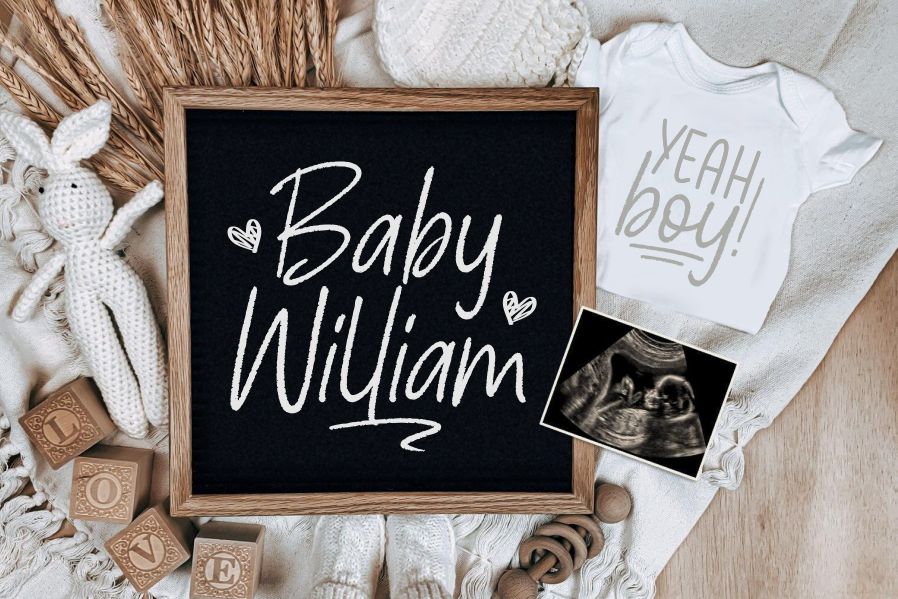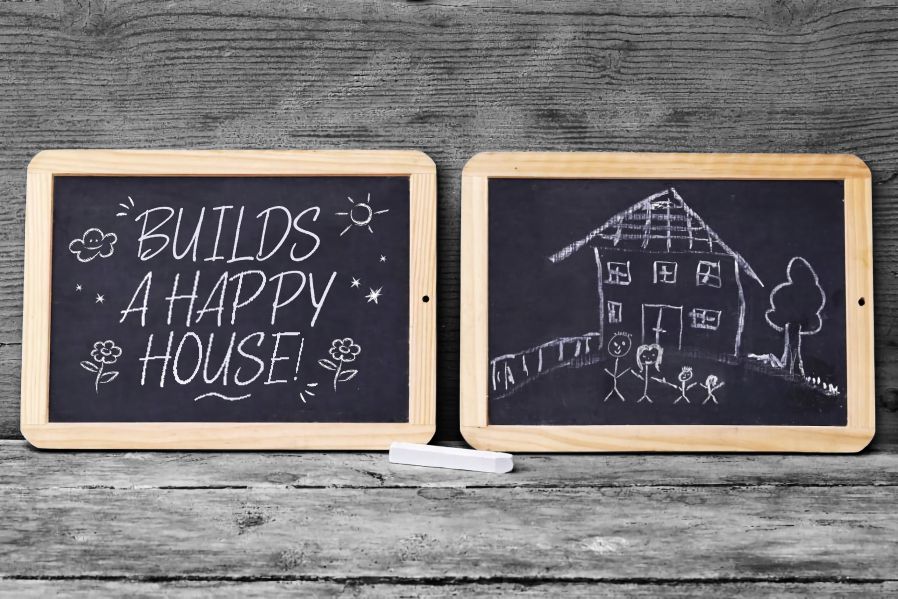
Worldchalk Font
Worldchalk Handwritten Font
It’s a script chalk font. Worldchalk is perfect for product packaging, branding project, magazines, social media, weddings, or just used to express words above the background.